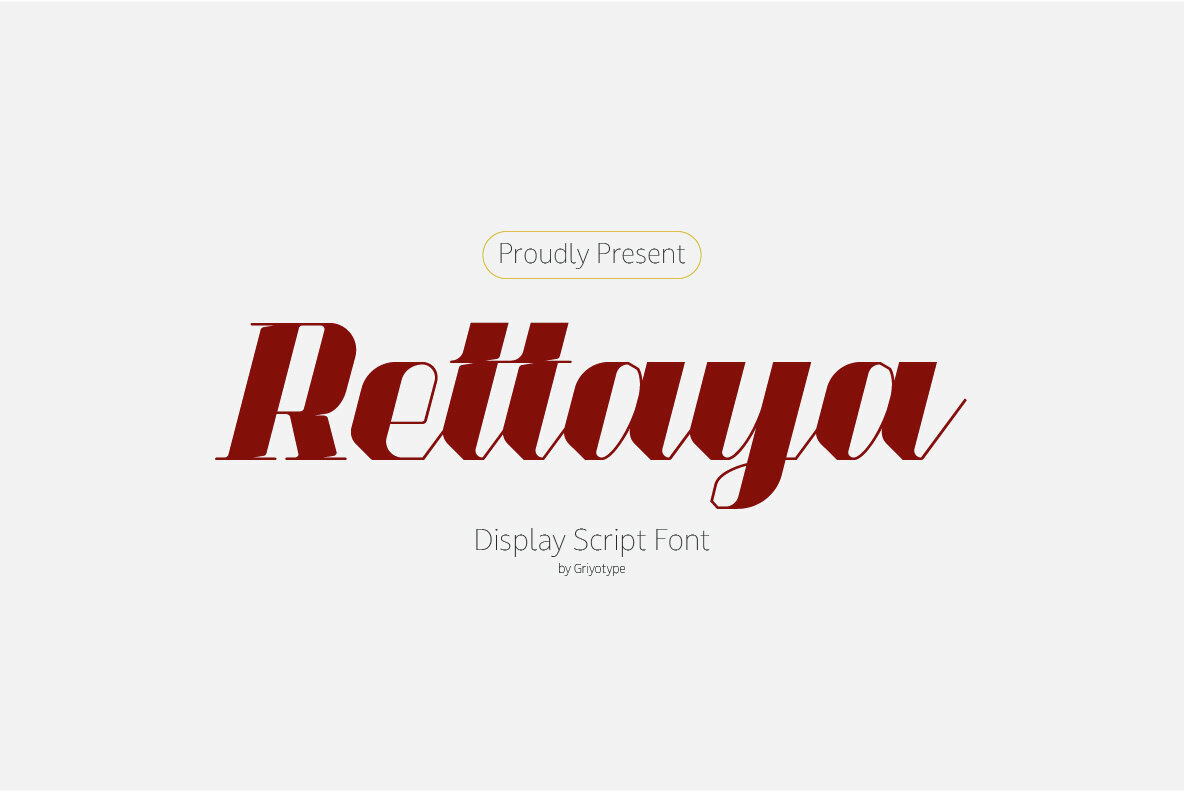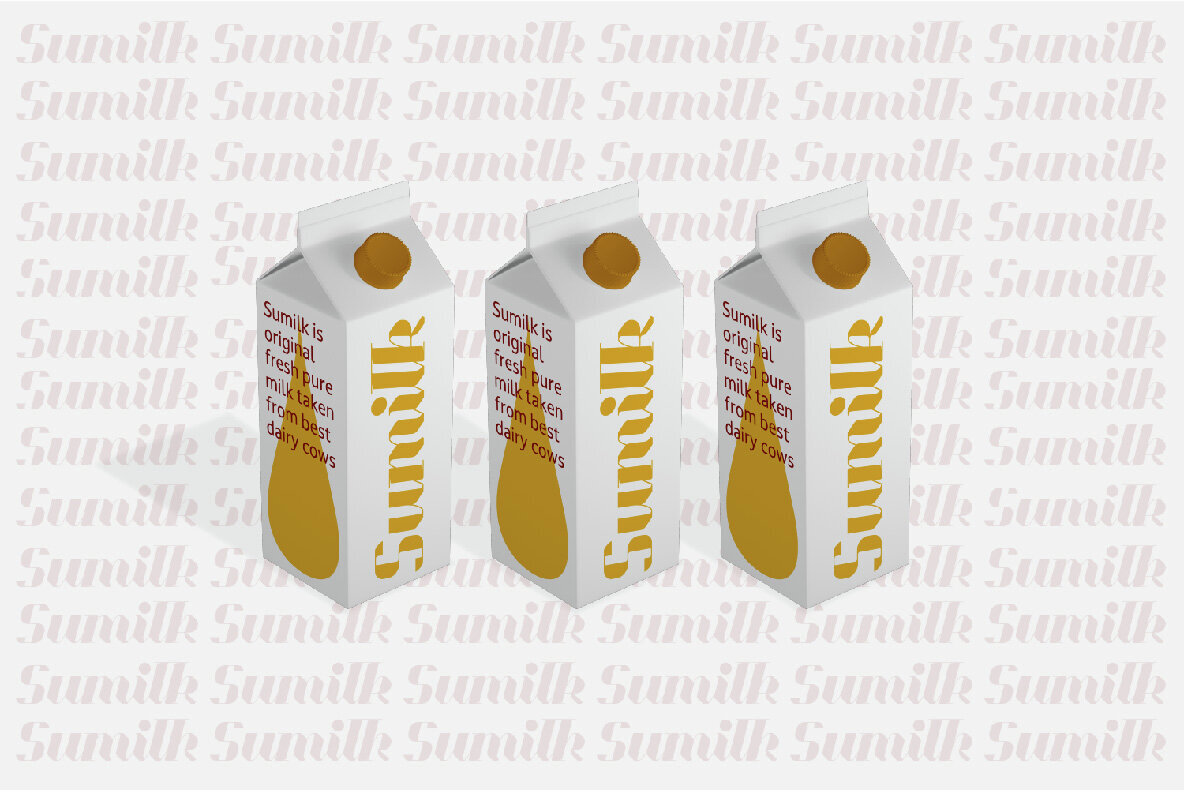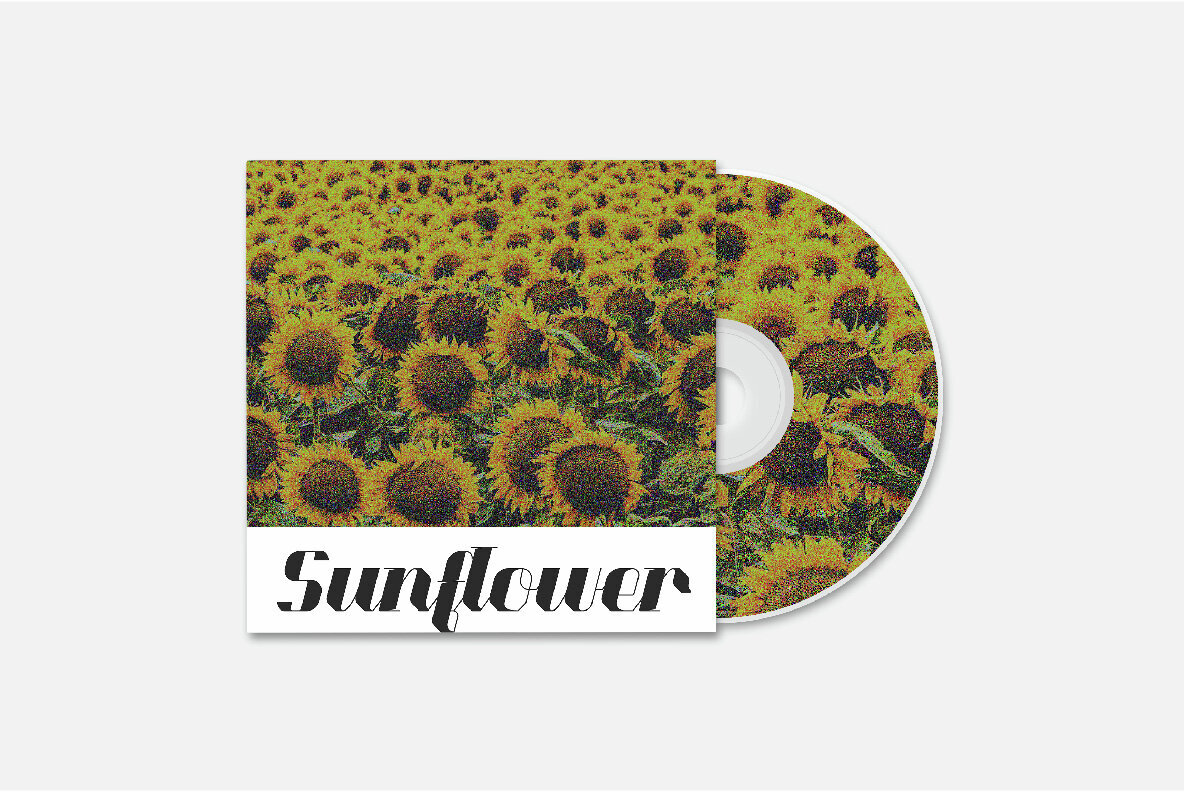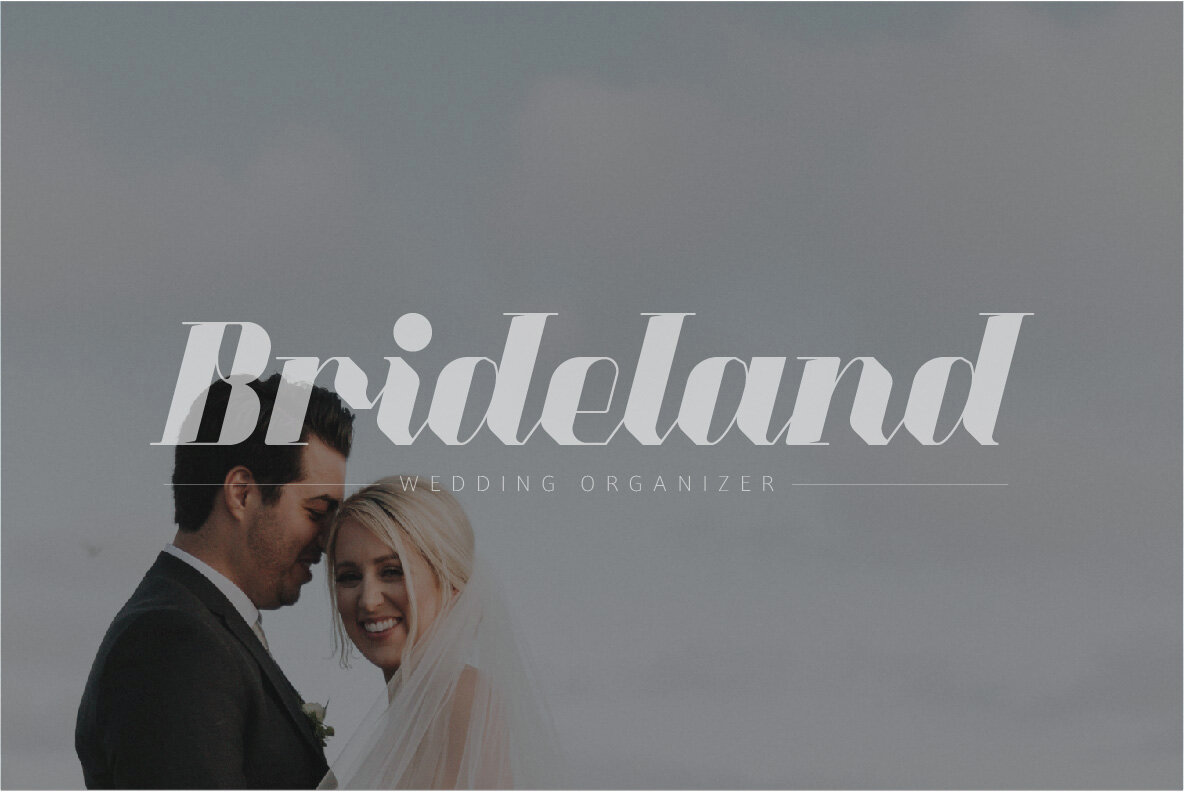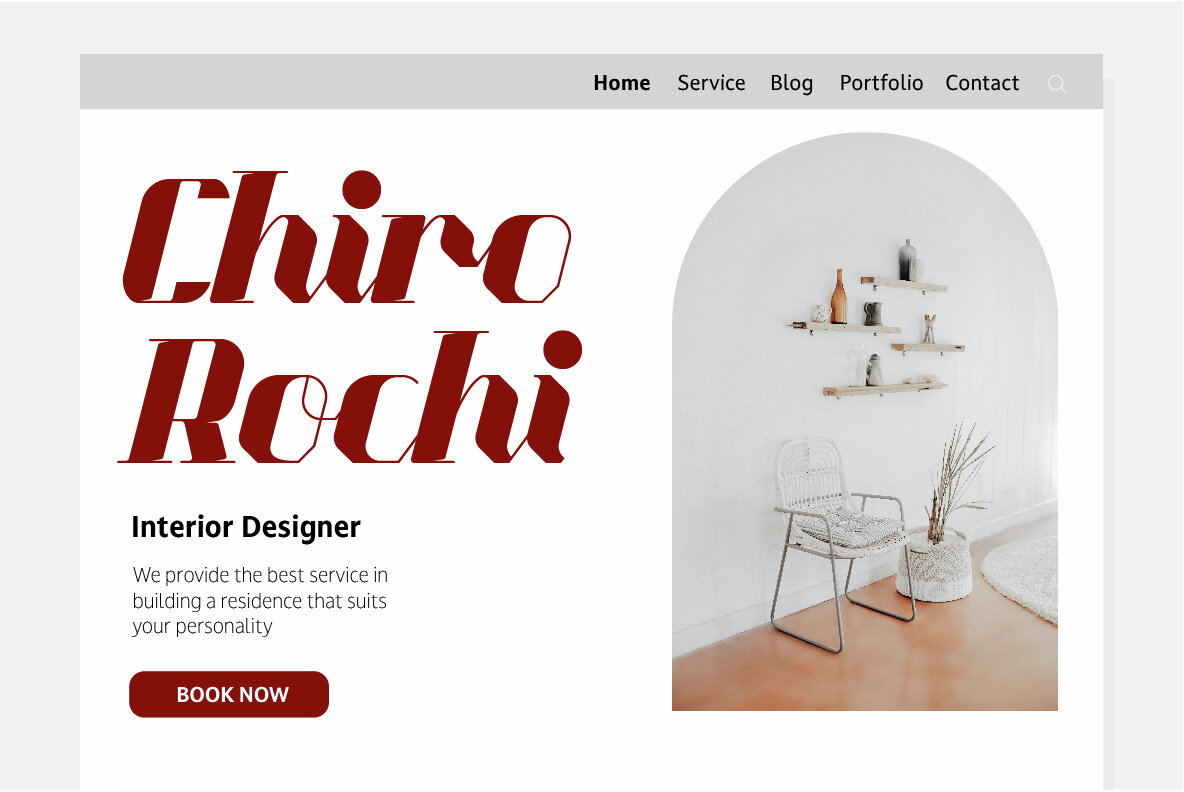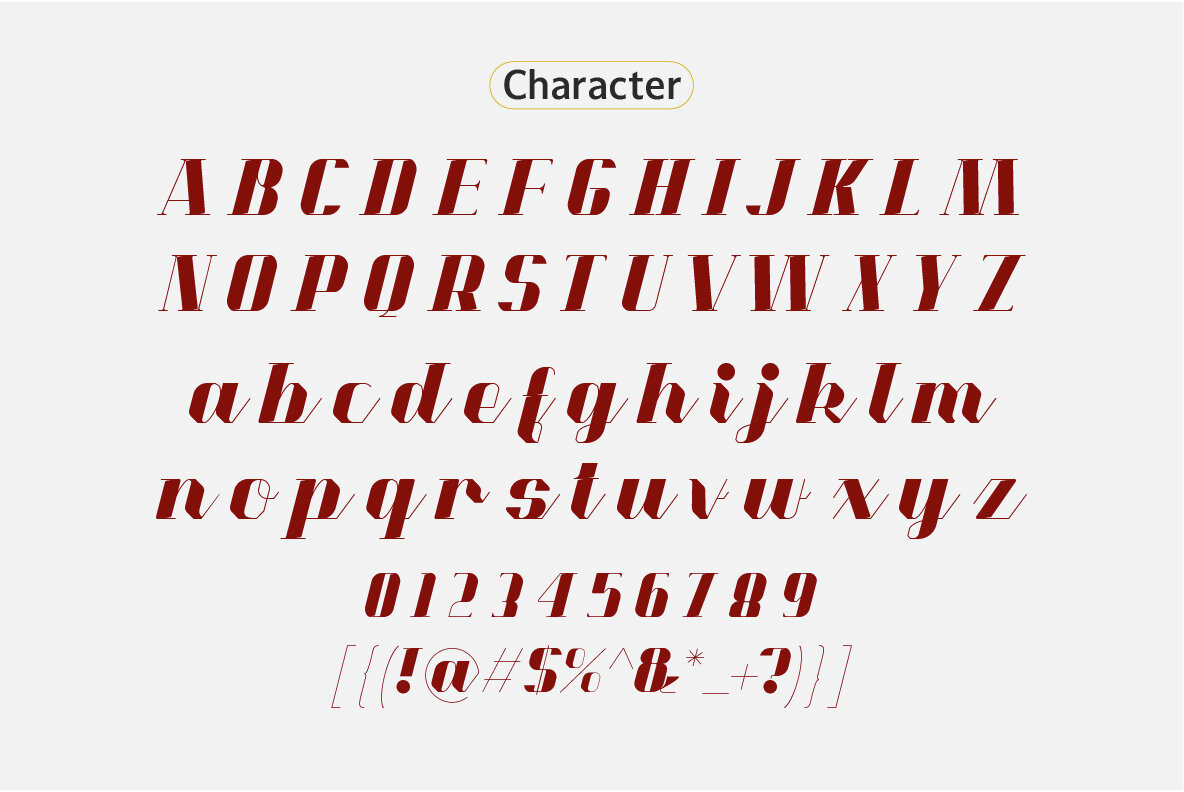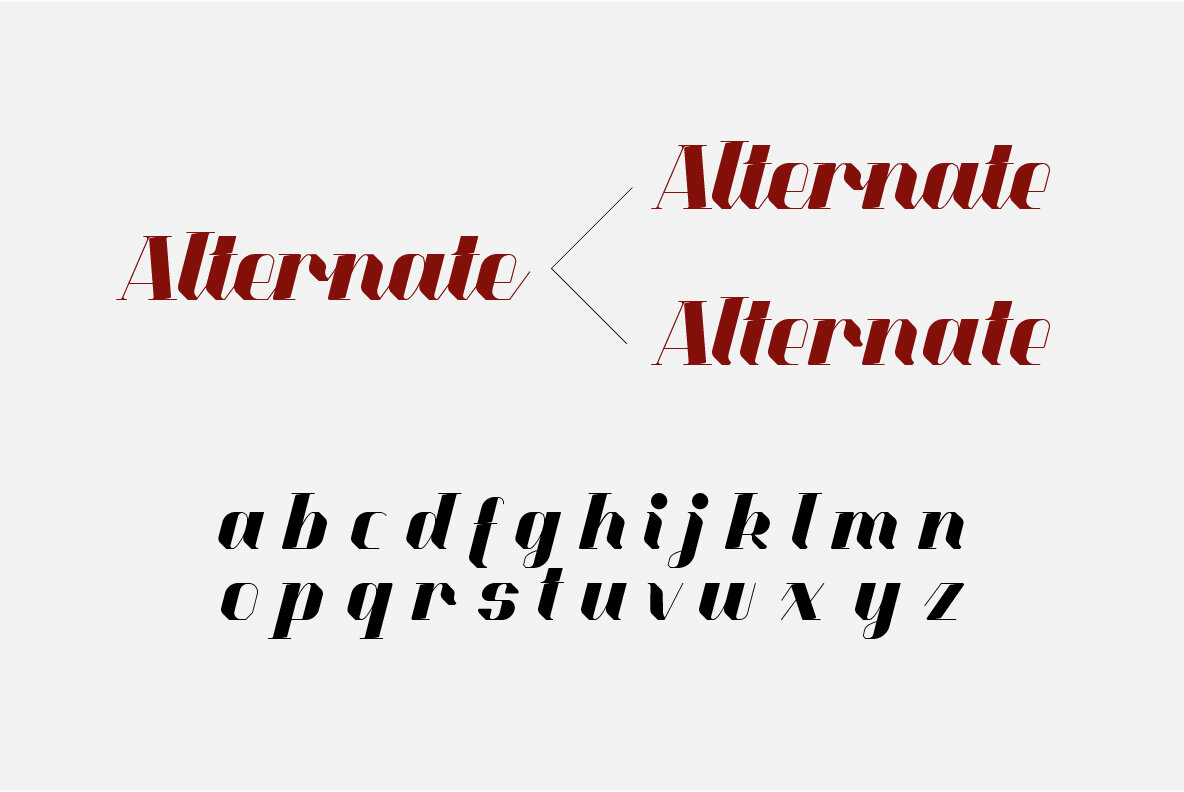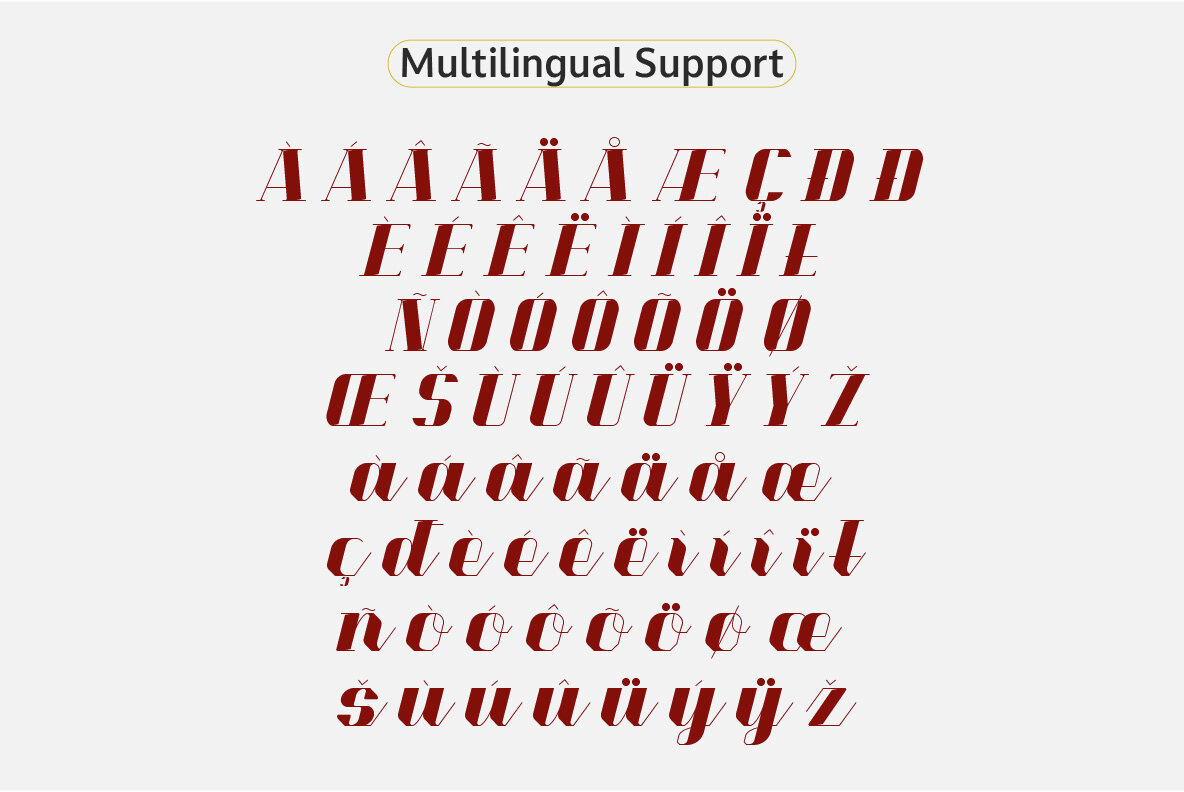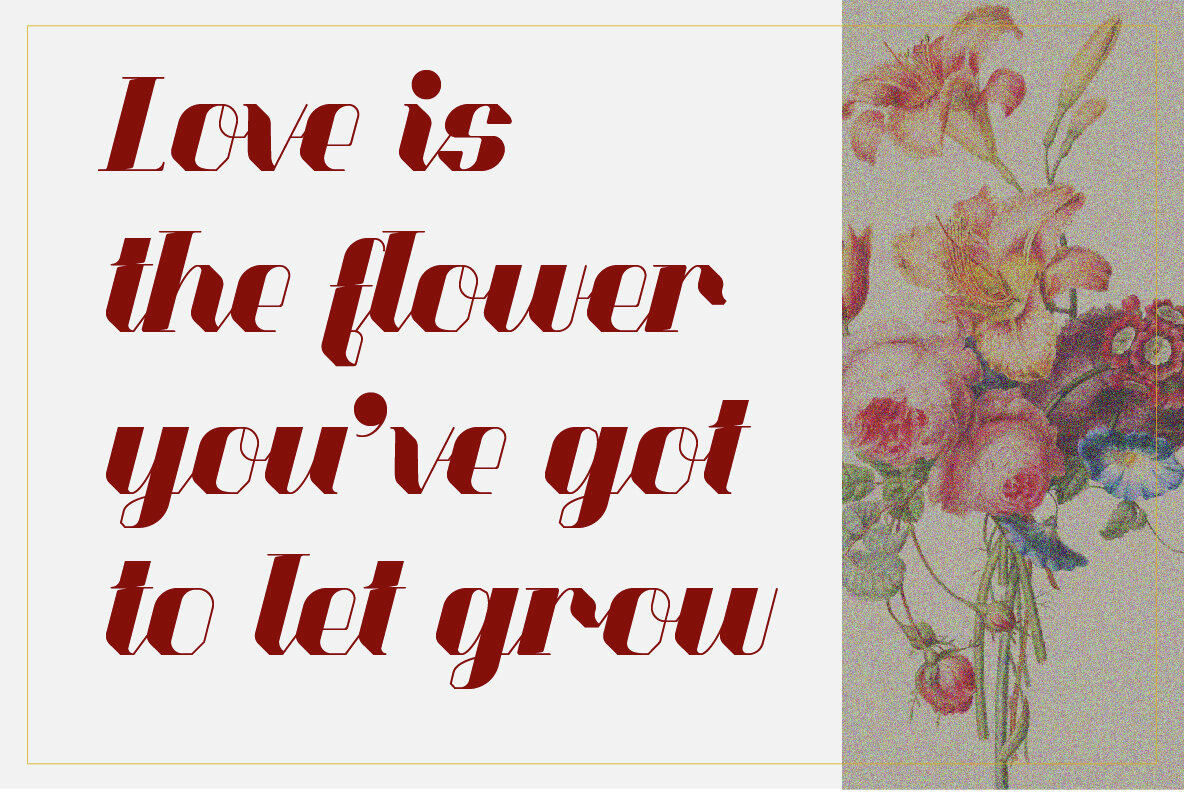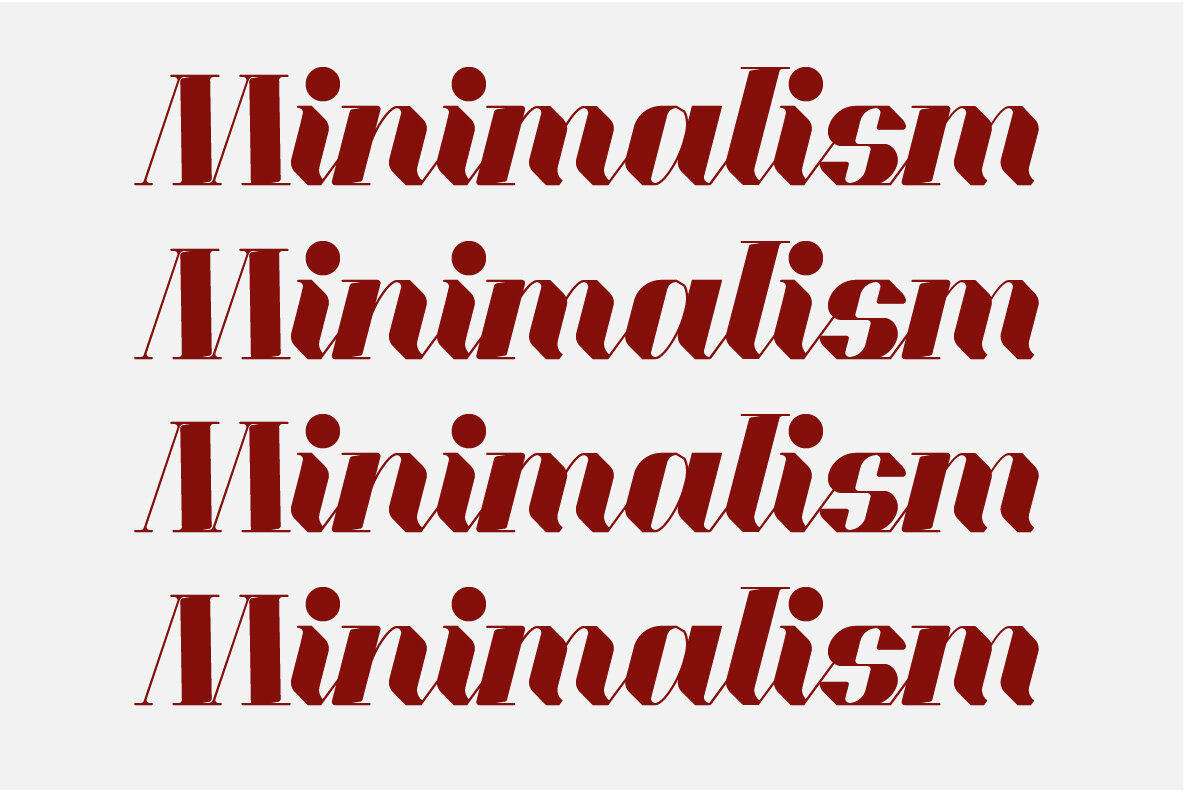
Rettaya Font
Rettaya Regular
Rettaya features bold curves and a striking flow, blending classic script elements with a modern, streamlined design sensibility. The confident shapes and sleek rhythm bring a distinct personality, making Rettaya an excellent choice for projects seeking both elegance and a progressive visual edge. Perfectly suited for a range of creative applications, Rettaya stands out in logos, product packaging, wedding layouts, posters, and projects that demand a forward-looking aesthetic. Its dynamic appearance and refined details draw the eye while maintaining readability and sophistication.Rettaya – Futuristic Script Display Font